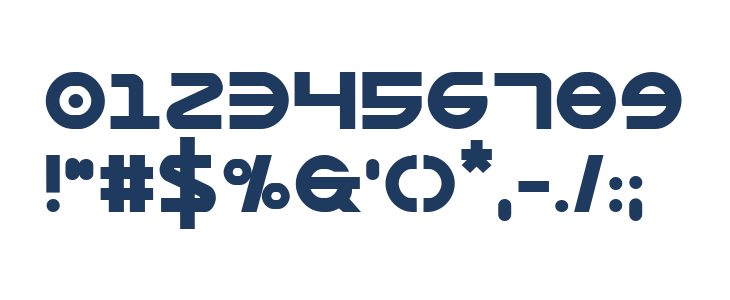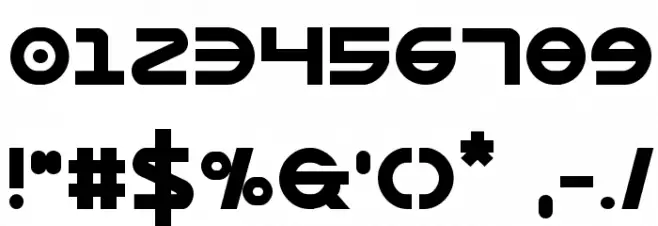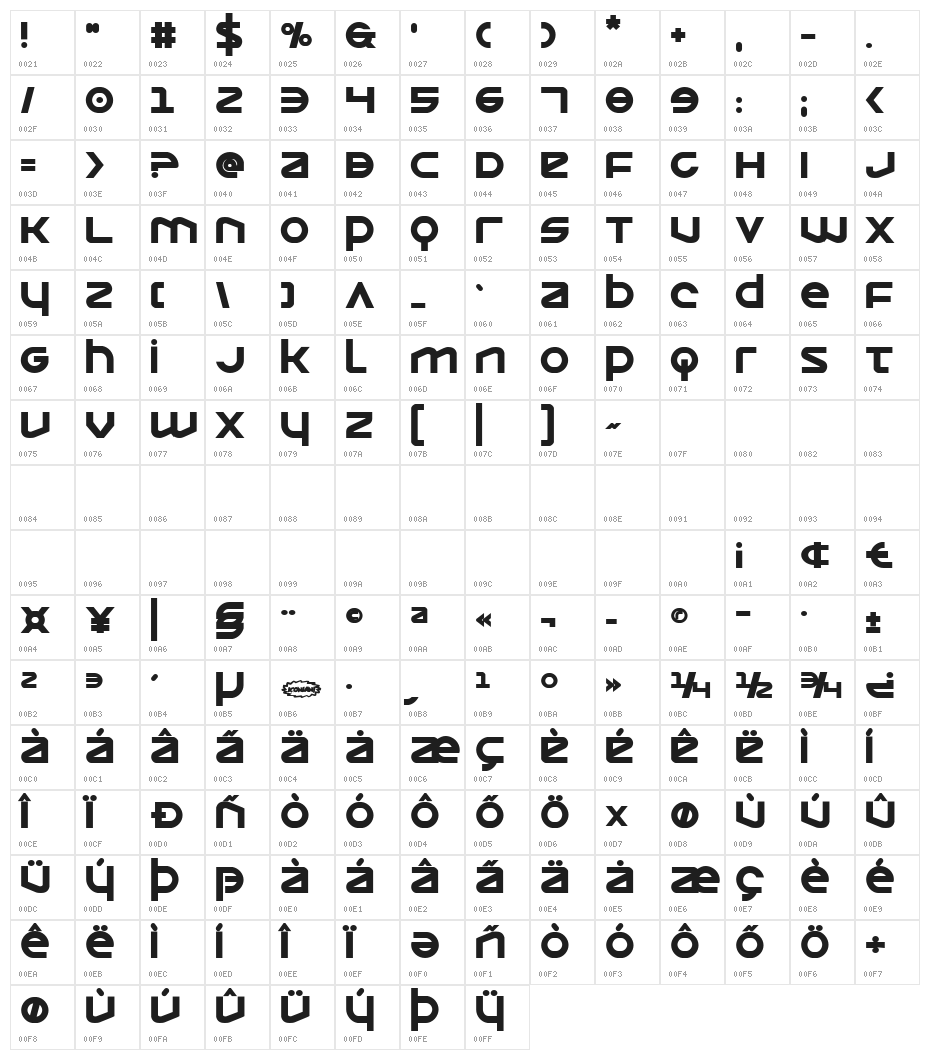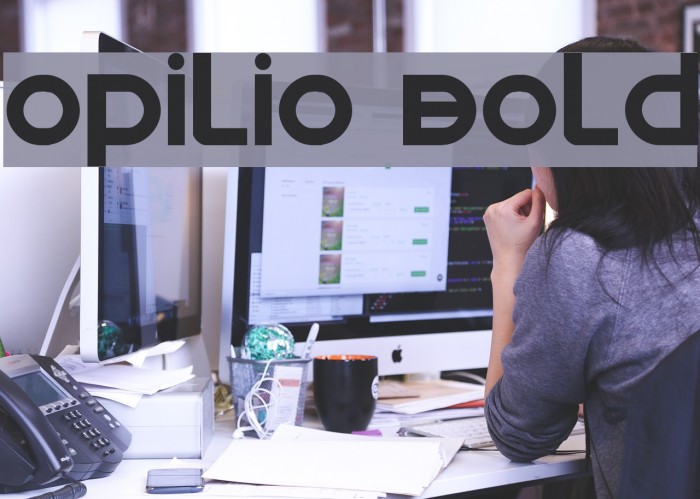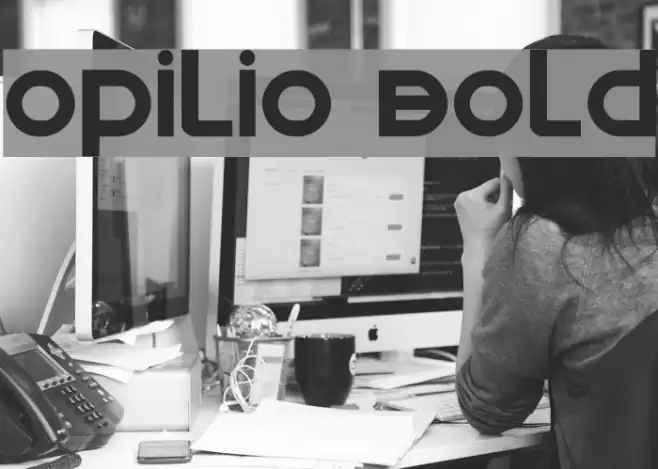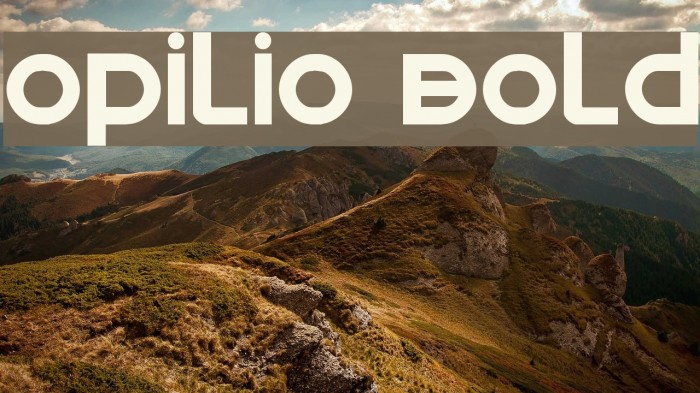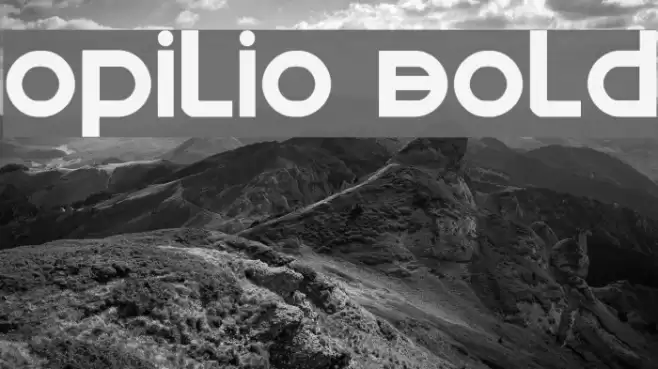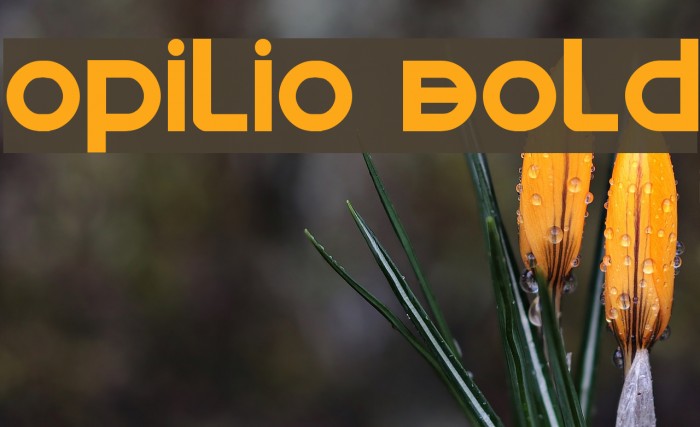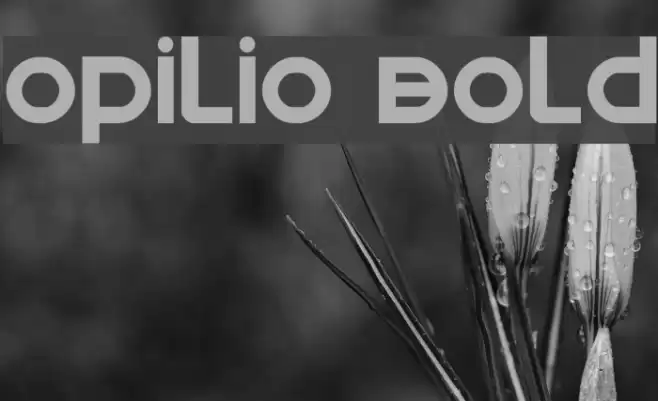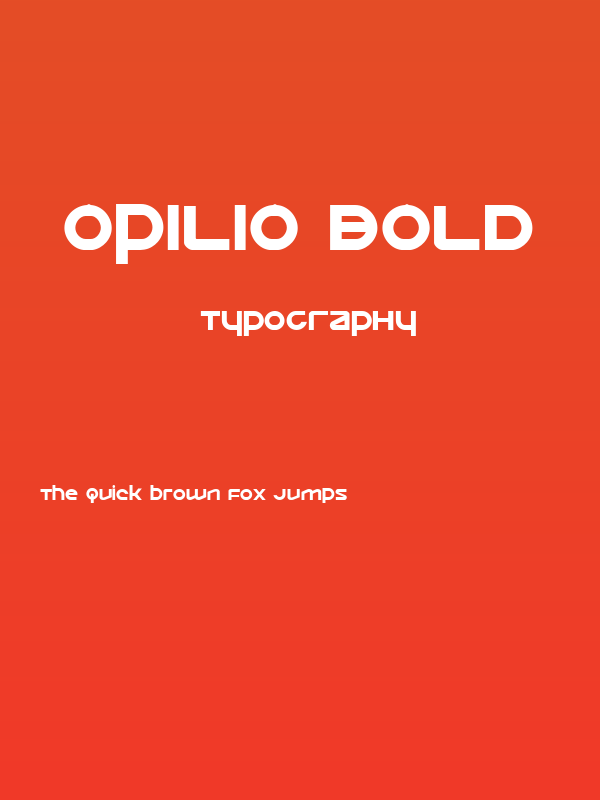
Opilio Bold Font
Opilio Bold Description
This font features a bold and geometric design with a modern aesthetic. The characters are constructed with thick, uniform strokes that give it a strong presence. The angular and blocky shapes of the letters create a futuristic and industrial feel. The uppercase and lowercase letters maintain a consistent style, with unique elements such as the curved tail on the lowercase 'g' and the distinctive shape of the 'Q'. The numerals are equally bold, with a consistent width that matches the letters. Special characters are designed to complement the overall style, maintaining the bold and geometric theme.
| Proposed Projects | Ideal for branding, posters, headlines, and any project requiring a strong, modern typeface. |